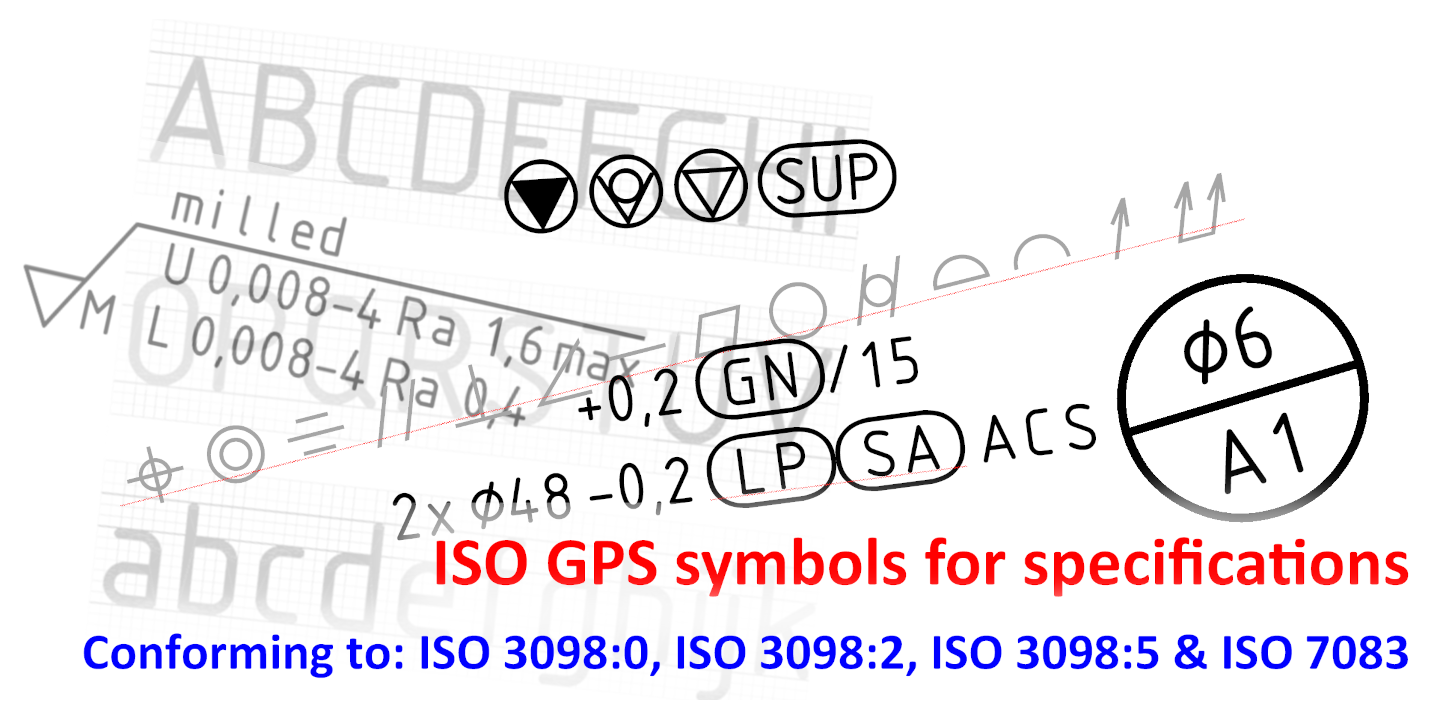
IMA ISO GPS No Frame Font is perfect for technical documentation, engineering blueprints, ISO standard compliance materials, GPS navigation systems, precision measurement instruments, industrial quality control manuals, technical specification sheets, manufacturing process documentation, aerospace engineering projects, and professional calibration certificate designs.
IMA ISO GPS No Frame Font is exciting because it delivers uncompromising precision and technical clarity with meticulously crafted letterforms that meet the exacting standards of international technical documentation, making it perfect for organizations that require absolute accuracy and professional compliance in their technical communications.
The IMA ISO GPS No Frame Font family includes regular weight with technical numerals, precision measurement symbols, and ISO-compliant character sets, providing designers with industry-standard tools for creating documentation that meets the most rigorous technical and regulatory requirements.
When your project demands technical precision and ISO compliance standards, IMA ISO GPS No Frame Font Free Download provides the perfect typographic foundation for professional technical documentation. This specialized technical typeface combines engineering precision with international standards compliance, ensuring your documentation meets the highest professional requirements for accuracy and clarity. The precise letterforms and technical styling make this font an essential choice for engineering firms, manufacturing companies, and any application where technical accuracy, measurement precision, and ISO standard compliance are crucial for maintaining professional credibility and meeting the exacting requirements of international technical documentation standards in highly regulated industries where precision determines safety and success.